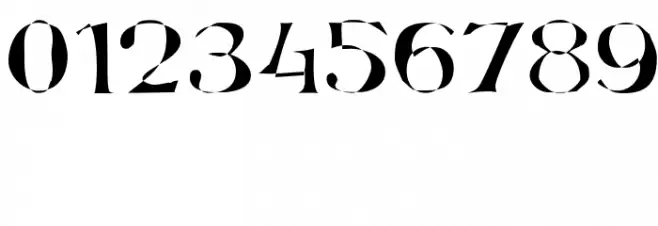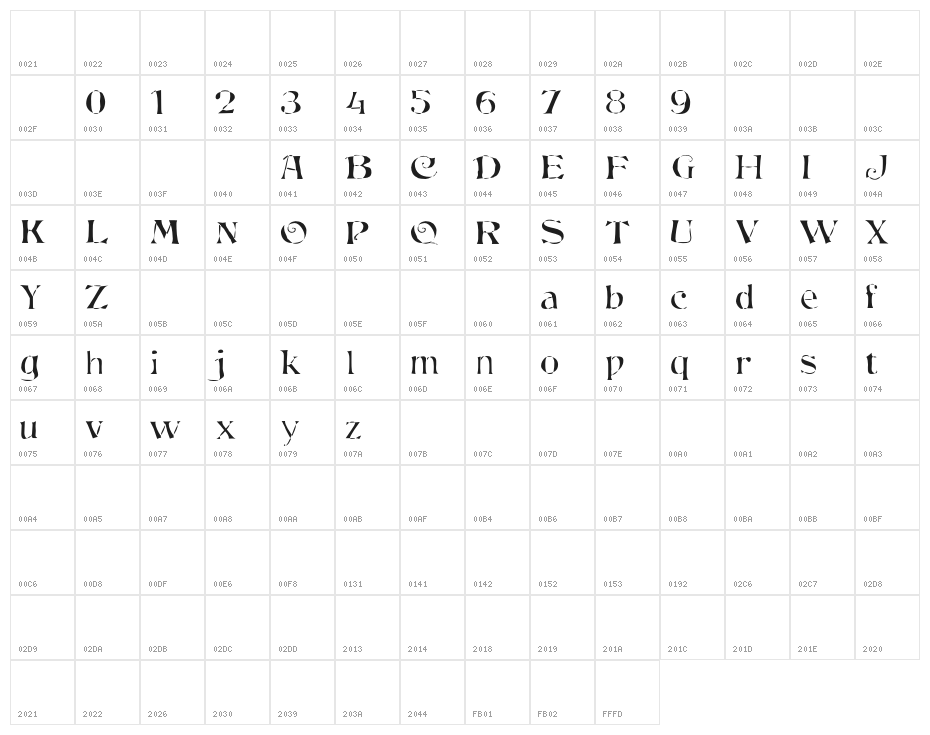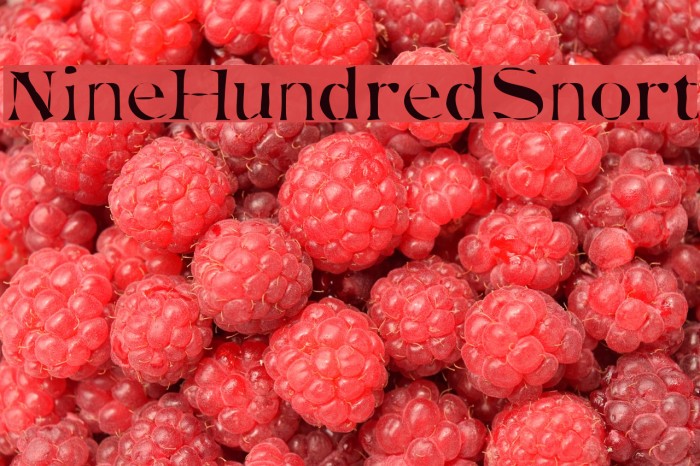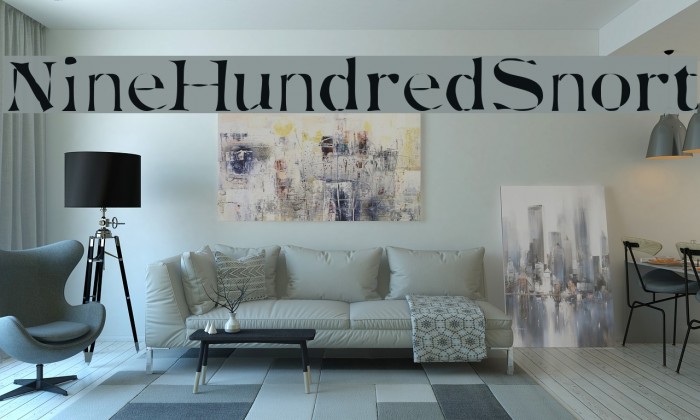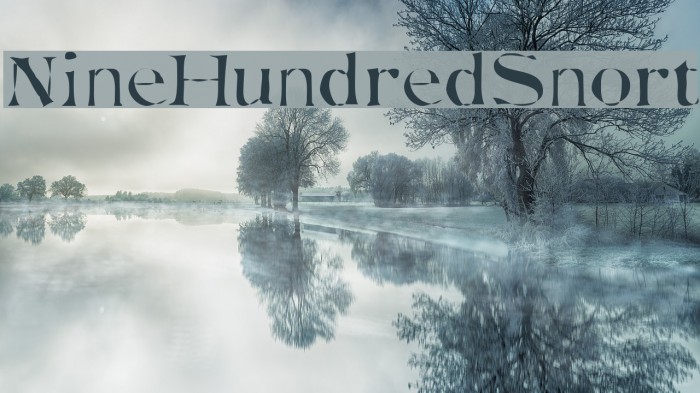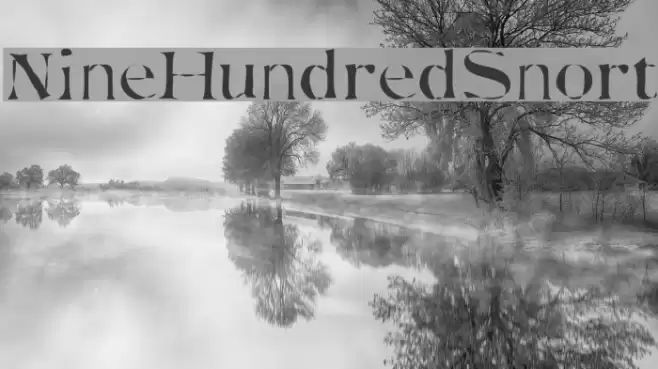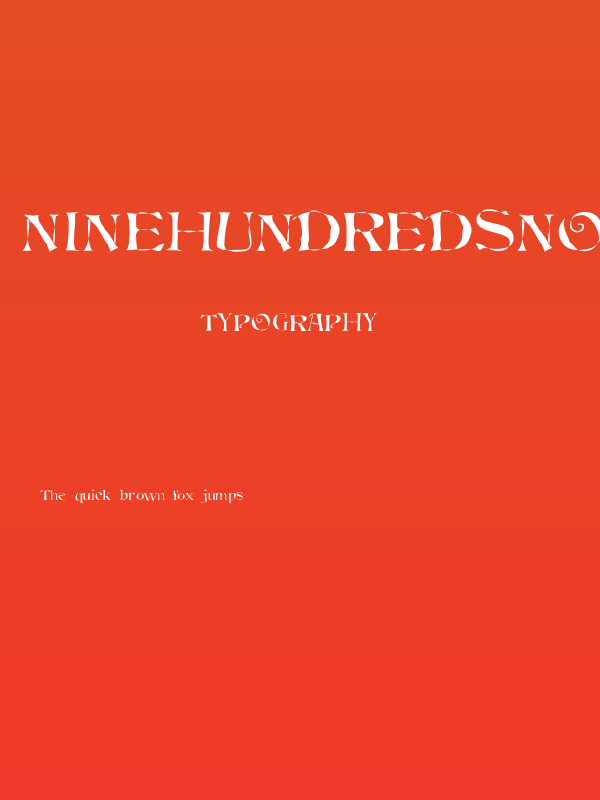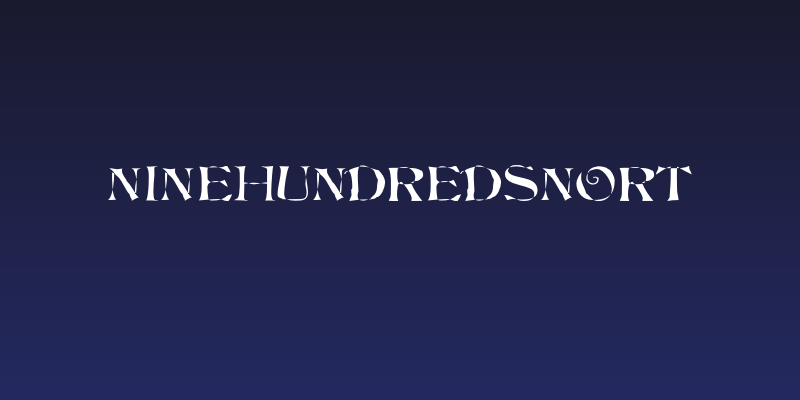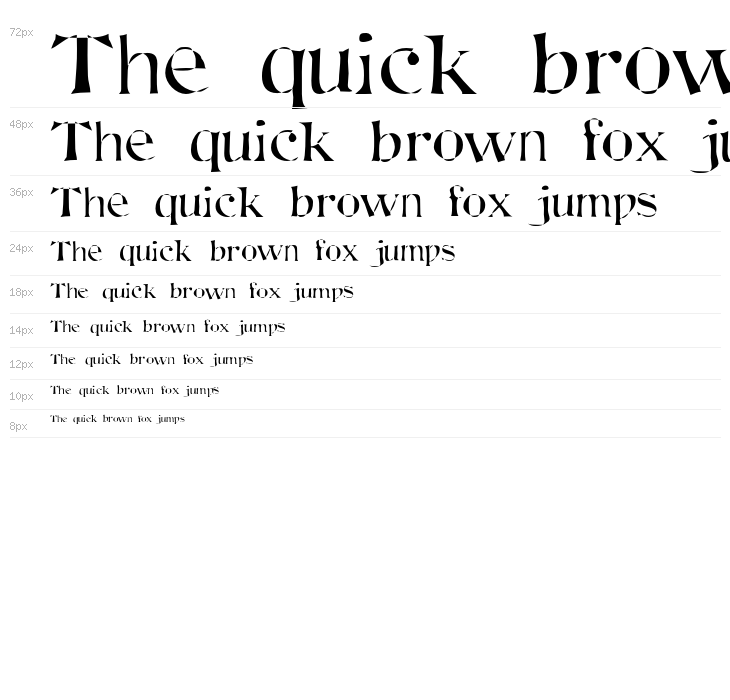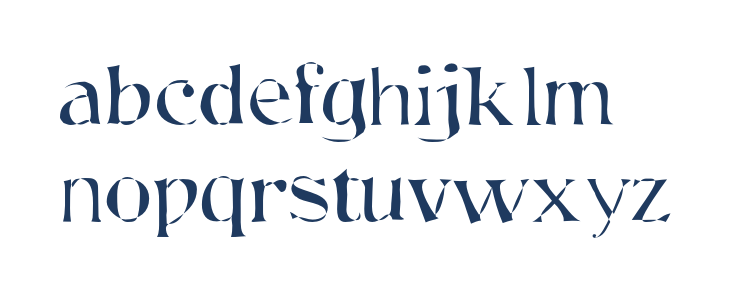
NineHundredSnort Font
NineHundredSnort Description
This font features a unique and artistic design with a modern twist. The characters are bold and have a distinct cut-out style, giving them a dynamic and edgy appearance. The uppercase letters are particularly striking, with sharp angles and a sense of movement. The lowercase letters maintain the same stylistic elements, ensuring consistency across the typeface. Numbers and special characters are equally bold and maintain the same artistic flair. This font is ideal for projects that require a strong visual impact and a contemporary feel.
| Proposed Projects | Ideal for branding, posters, album covers, and any project needing a bold visual statement. |